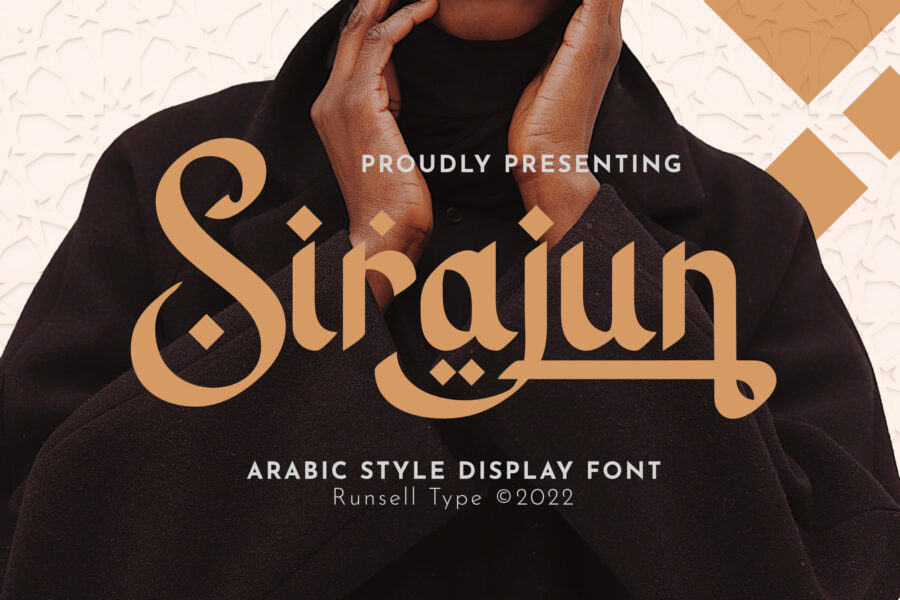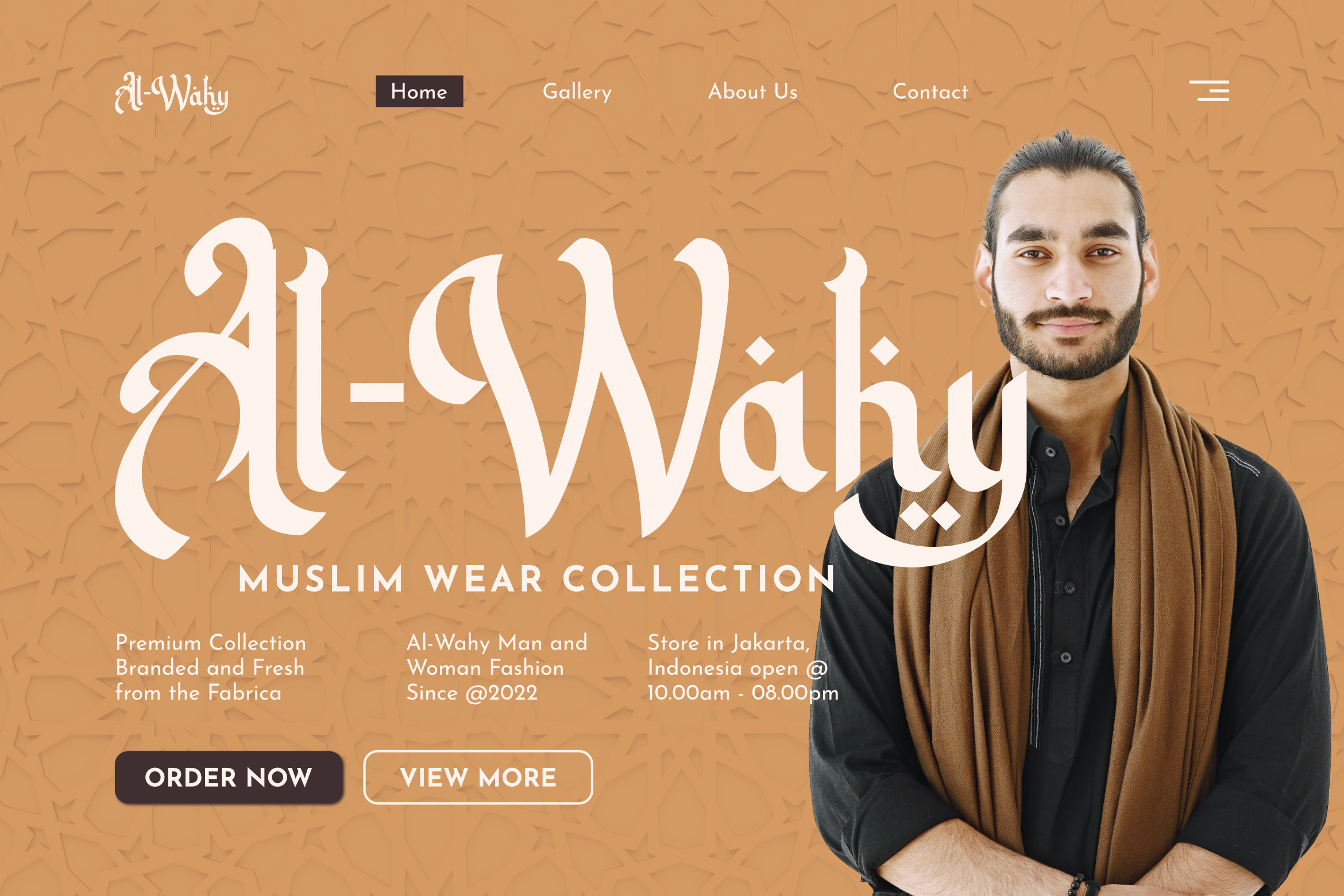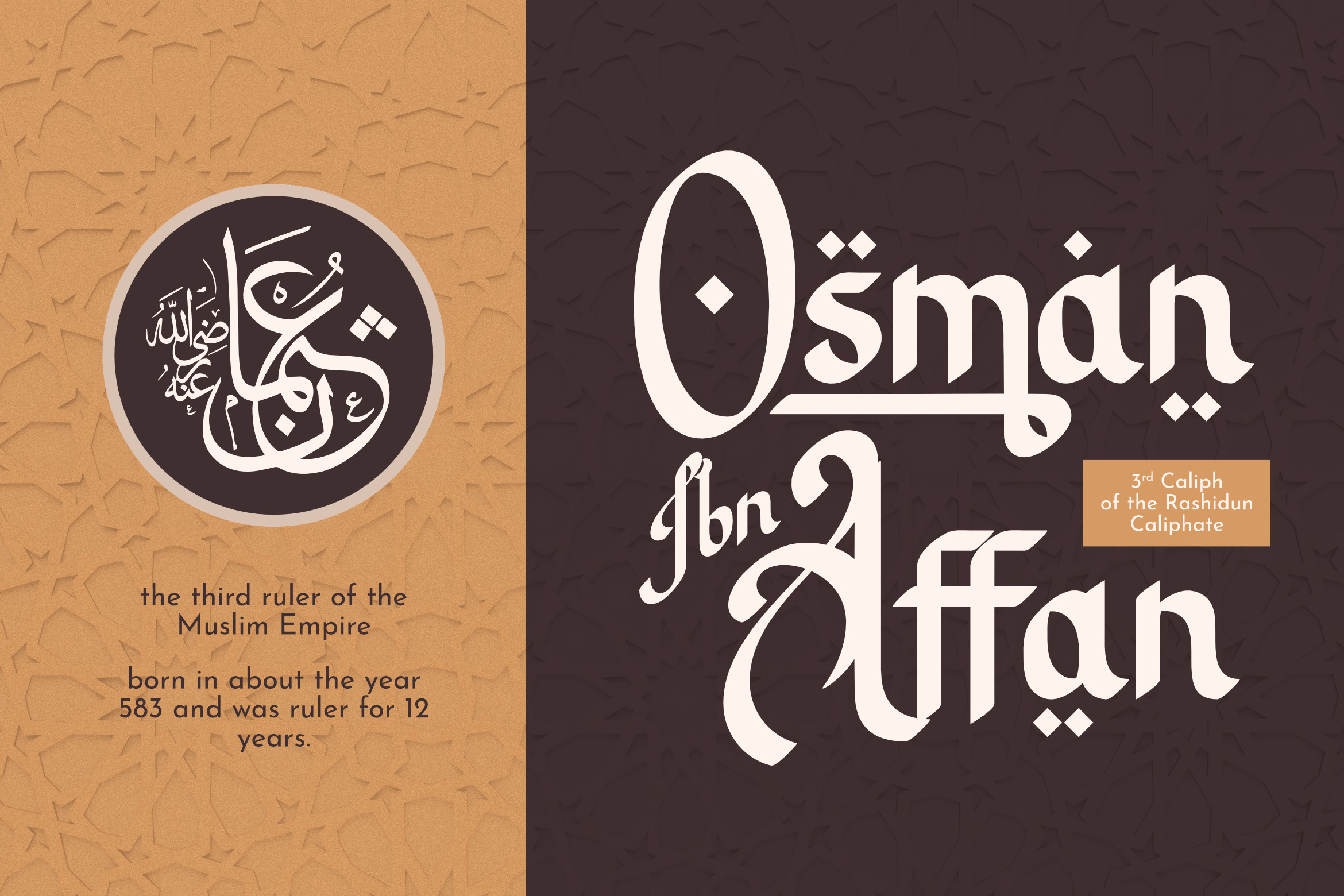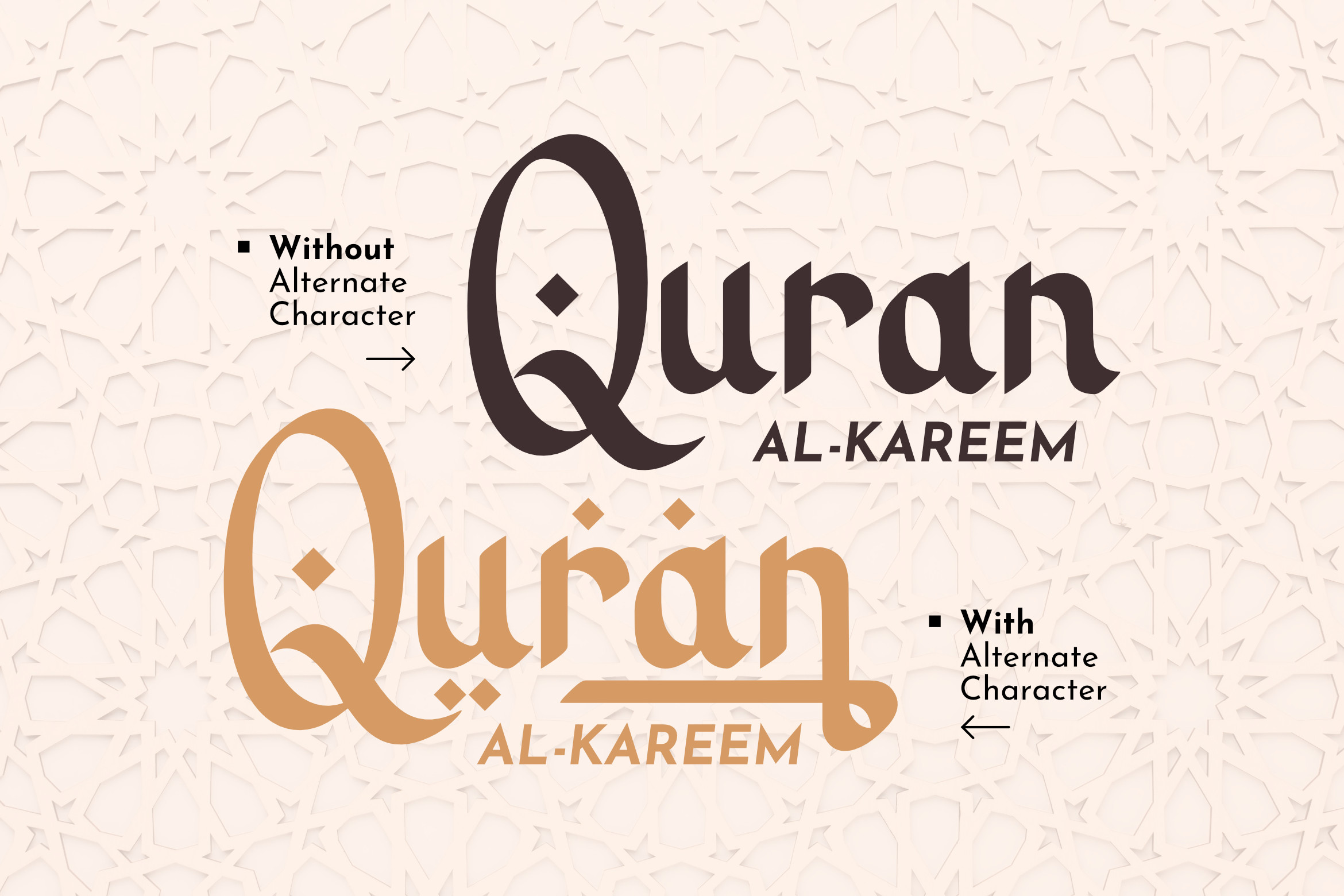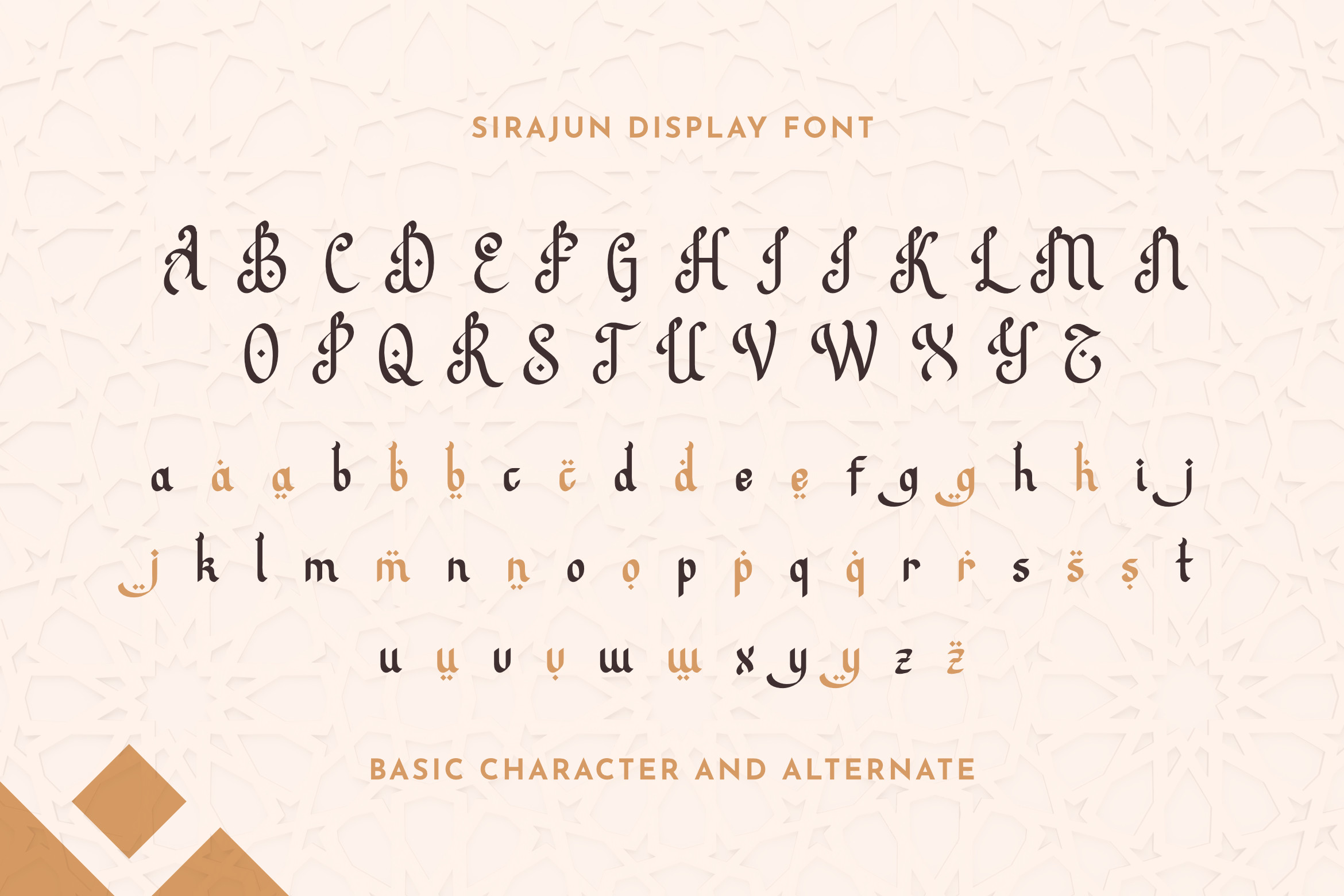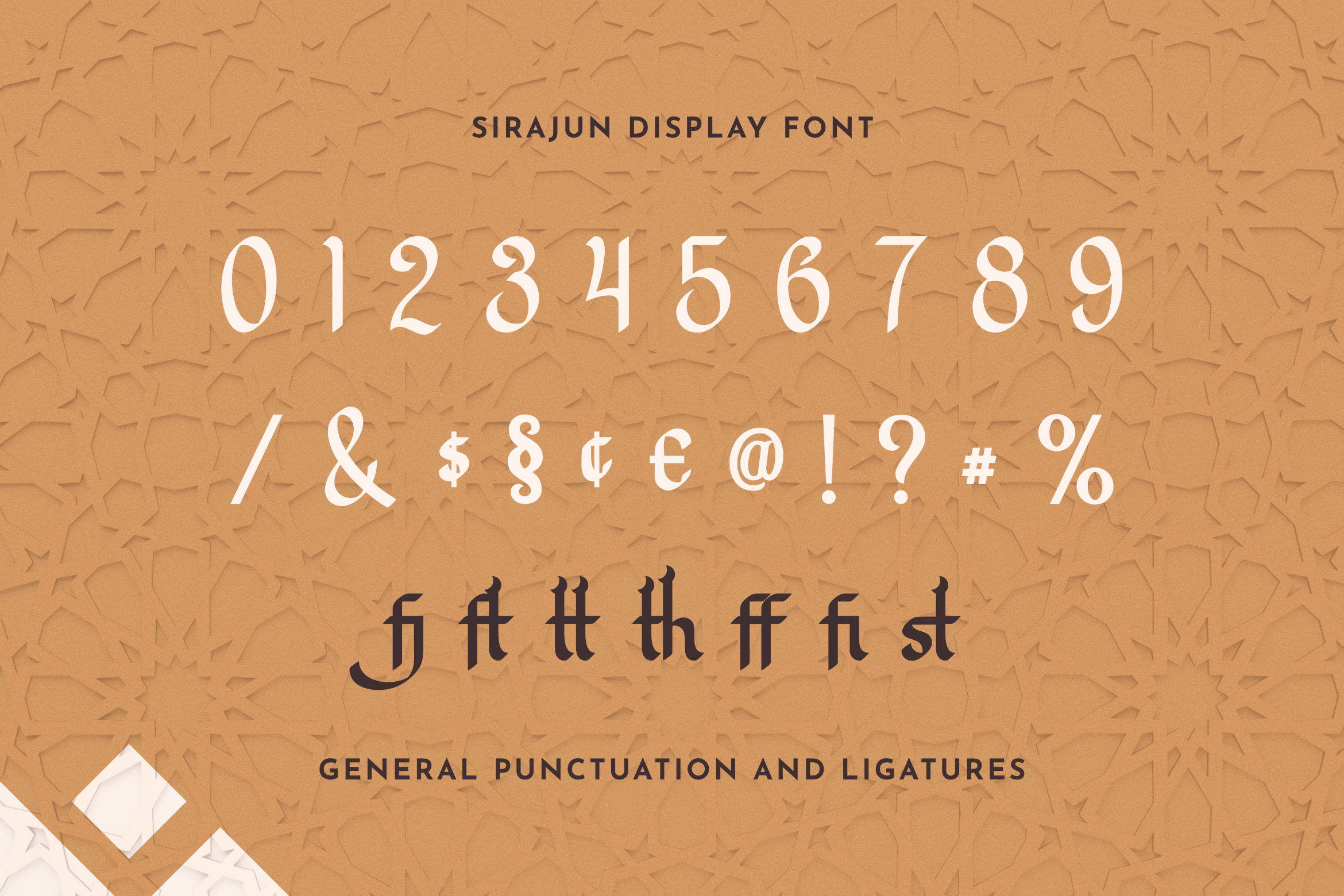
Sirajun
Sirajun is a captivating display font that beautifully captures the aesthetic of traditional Arabic calligraphy within the Latin alphabet. It is defined by its fluid, cursive-like letterforms, which feature elegant swashes and dynamic strokes. The font incorporates stylistic elements inspired by Arabic script, such as unique diacritical marks and alternates, which add an authentic and culturally rich feel. This creates a typeface that is both ornamental and expressive, perfect for making a bold, artistic statement.
Due to its distinct style, Sirajun is exceptionally well-suited for projects related to Islamic or Middle Eastern themes, such as branding for Muslim fashion, religious texts, and historical content. Its decorative nature also makes it an excellent choice for event posters, book covers, logos, and any design that requires a touch of exotic elegance and spirituality. The availability of alternate characters and ligatures provides designers with the flexibility to create truly unique and customized typographic compositions.